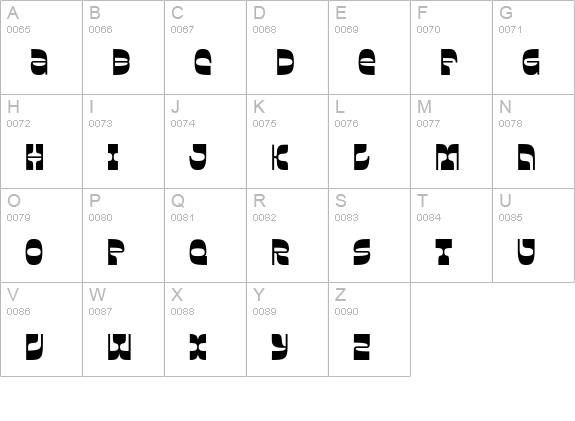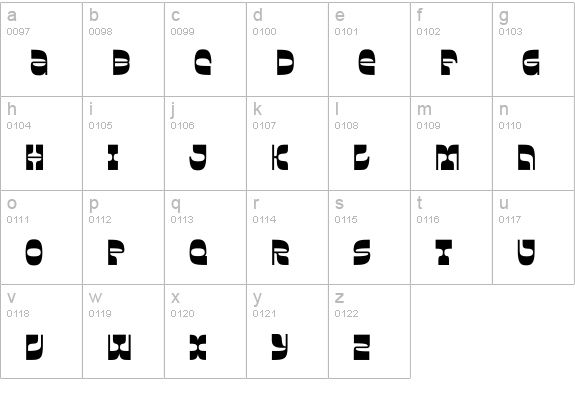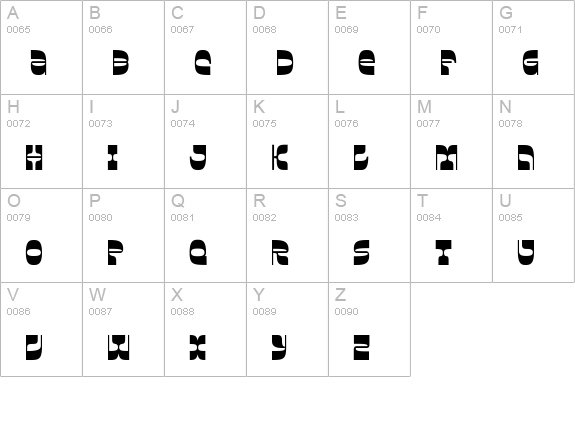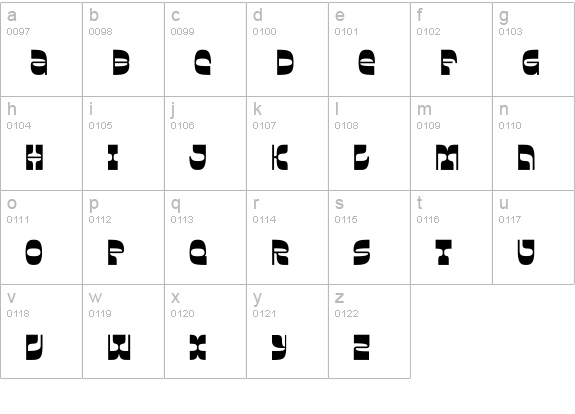
Introducing Laydeez-Nite font, a mesmerizing typeface that exudes elegance and sophistication. Crafted with meticulous attention to detail, this font is sure to captivate and enchant any project it is used in. Laydeez-Nite font is a perfect blend of classic and modern design elements, making it incredibly versatile for a wide range of creative endeavors. Its sleek and fluid curves create a sense of movement, while the precise lines and sharp edges add a touch of contemporary flair. With its generous x-height and well-balanced letterforms, Laydeez-Nite font ensures optimal legibility and readability in both print and digital mediums. Whether used for headlines, body text, or even in logos and branding, this font guarantees a polished and professional look. But what sets Laydeez-Nite font apart is not just its exceptional design, but also its availability. This font is freely available to download at FontsMarket.com, making it accessible to designers, creatives, and enthusiasts alike. Its free availability allows for endless possibilities and encourages creativity without any financial limitations. So why wait? Enhance your designs, elevate your projects, and unleash your imagination with Laydeez-Nite font. Download it now from FontsMarket.com and experience the beauty and versatility of this remarkable typeface.